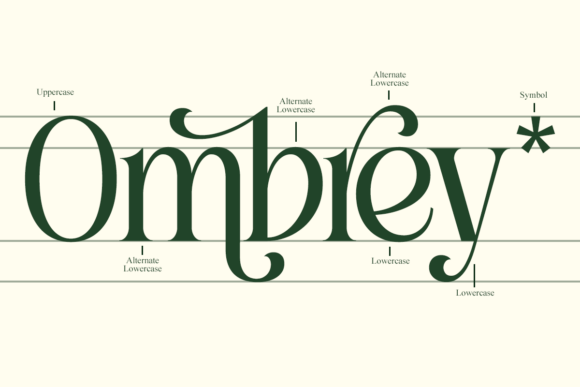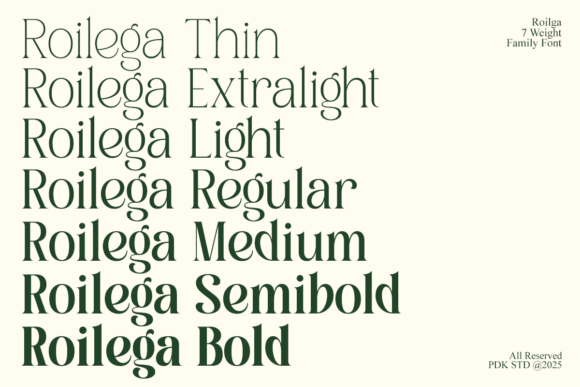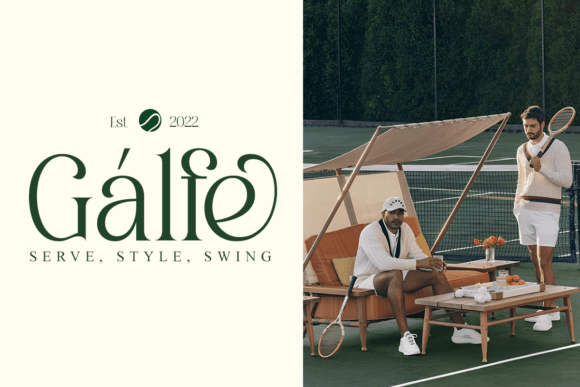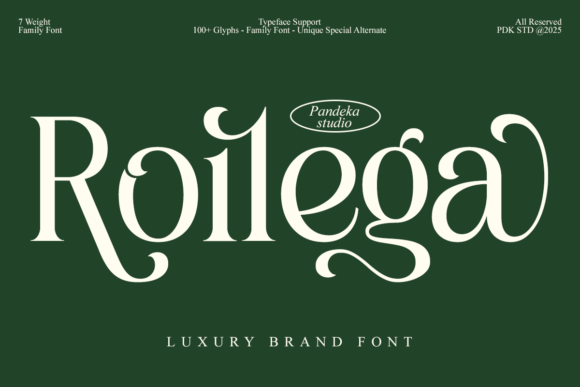
Introduction to Roilega Font
Roilega is a refined luxury serif family font crafted for premium branding, editorial design, packaging, and high-end visual identities.
Its smooth curves, elegant contrast, and timeless proportions deliver a polished and sophisticated aesthetic suitable for both modern and classic brands Featuring 7 styles — Thin to Bold — plus a fully adjustable Variable Font, Roilega allows designers to customize weight seamlessly for print, digital, and responsive layouts.
Key Features of Roilega Font